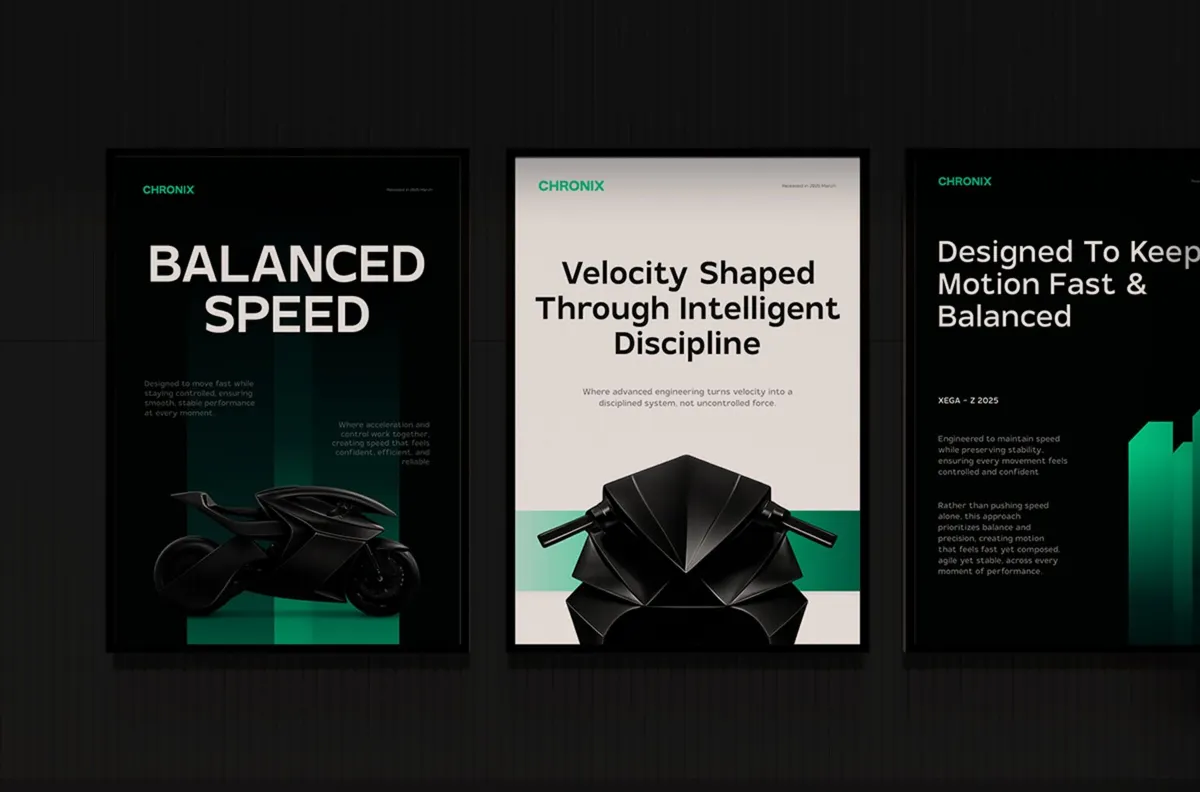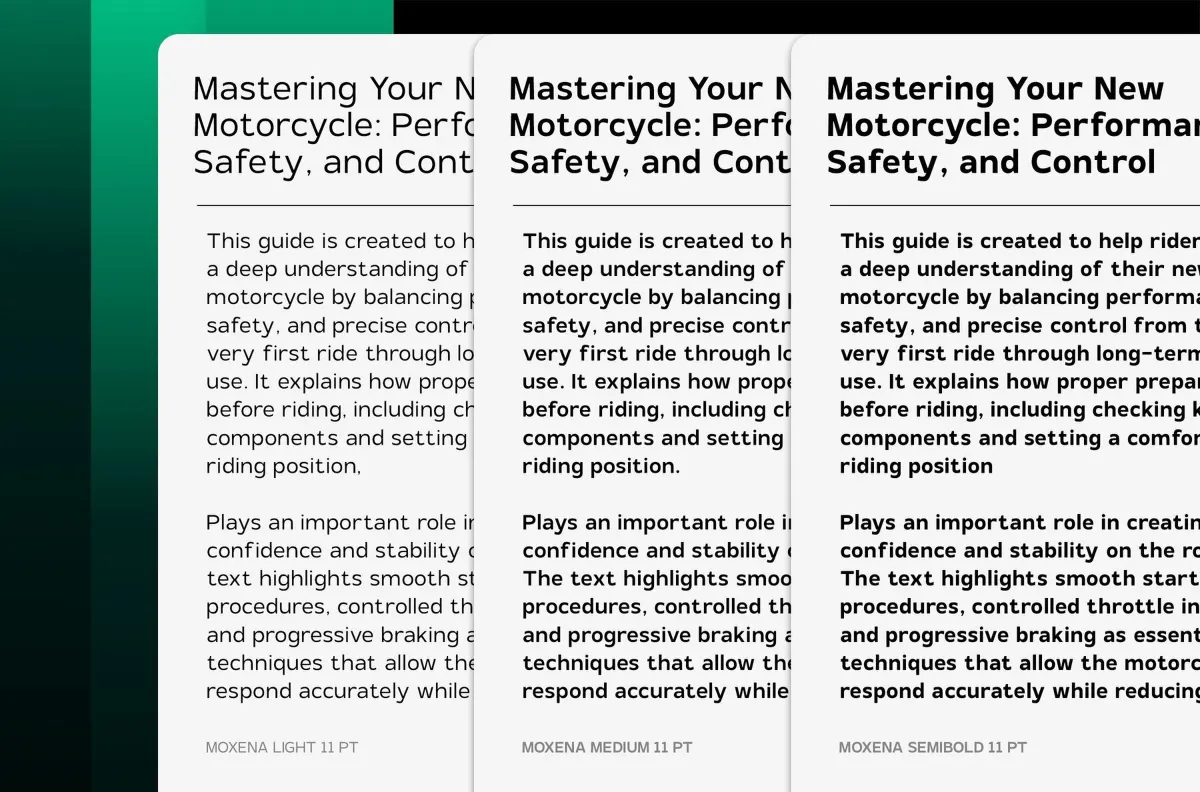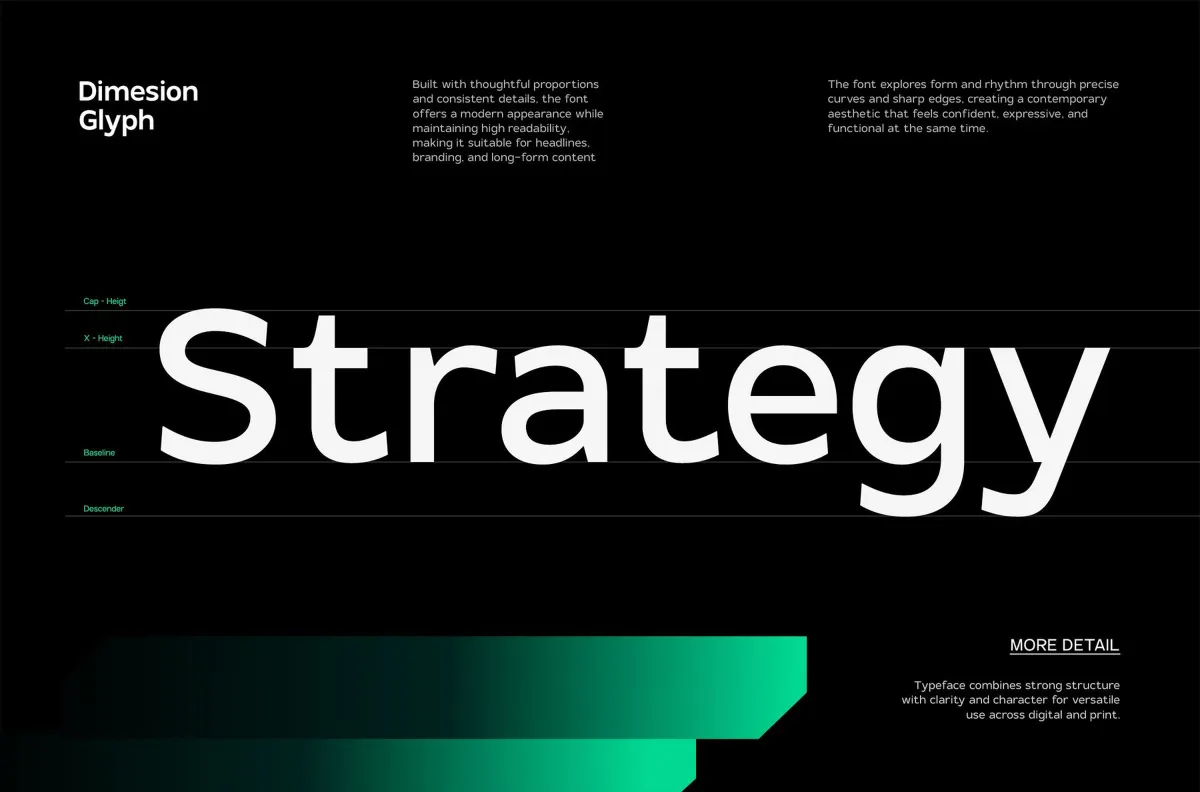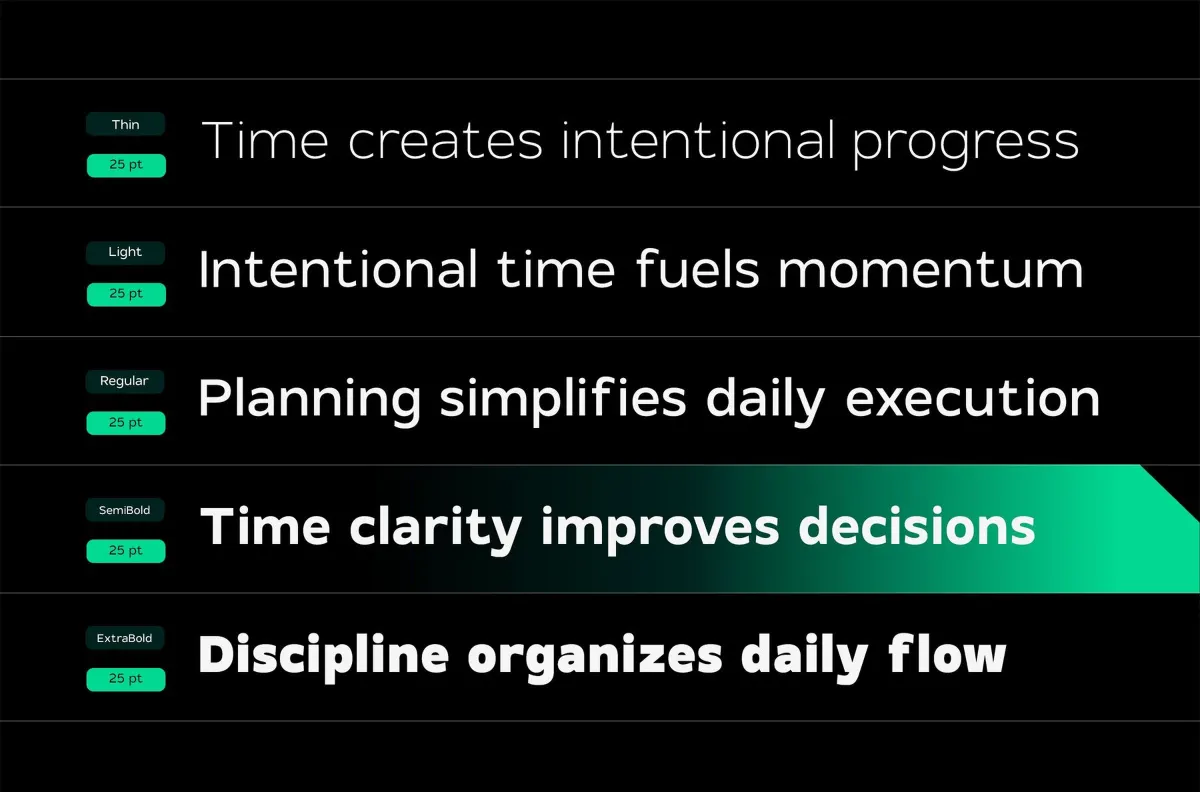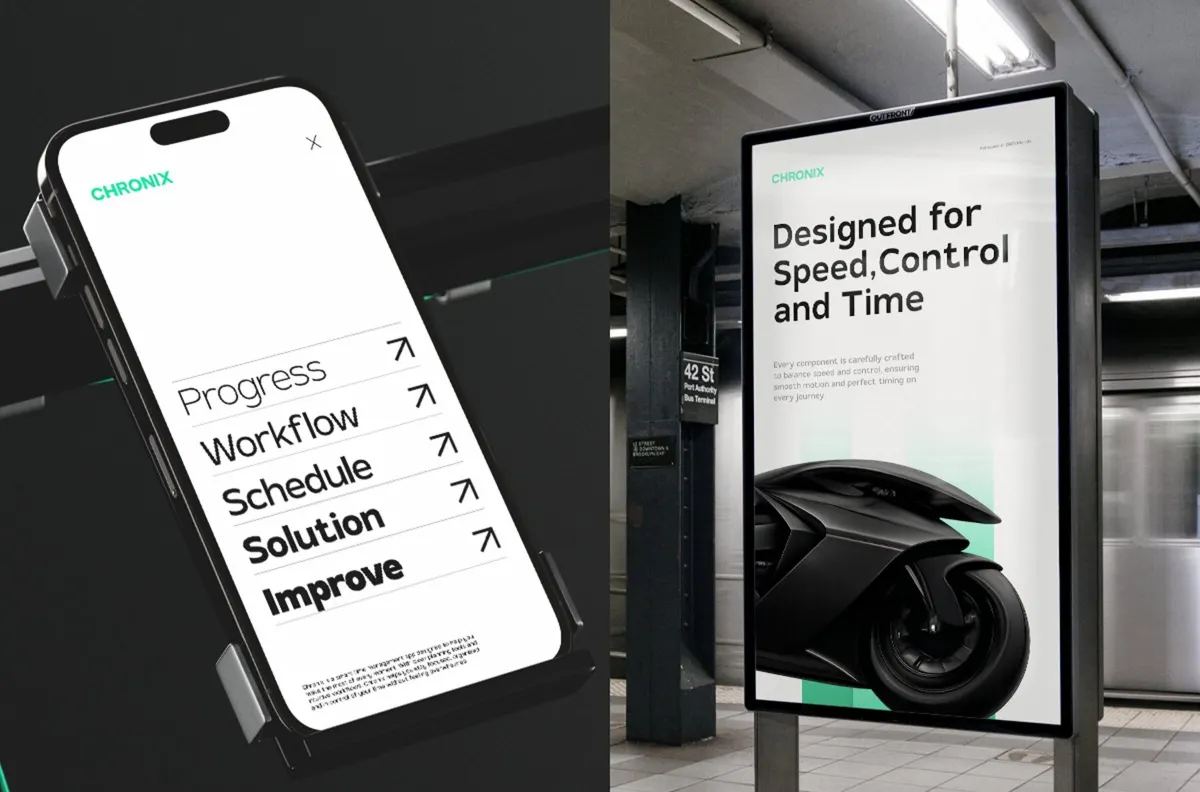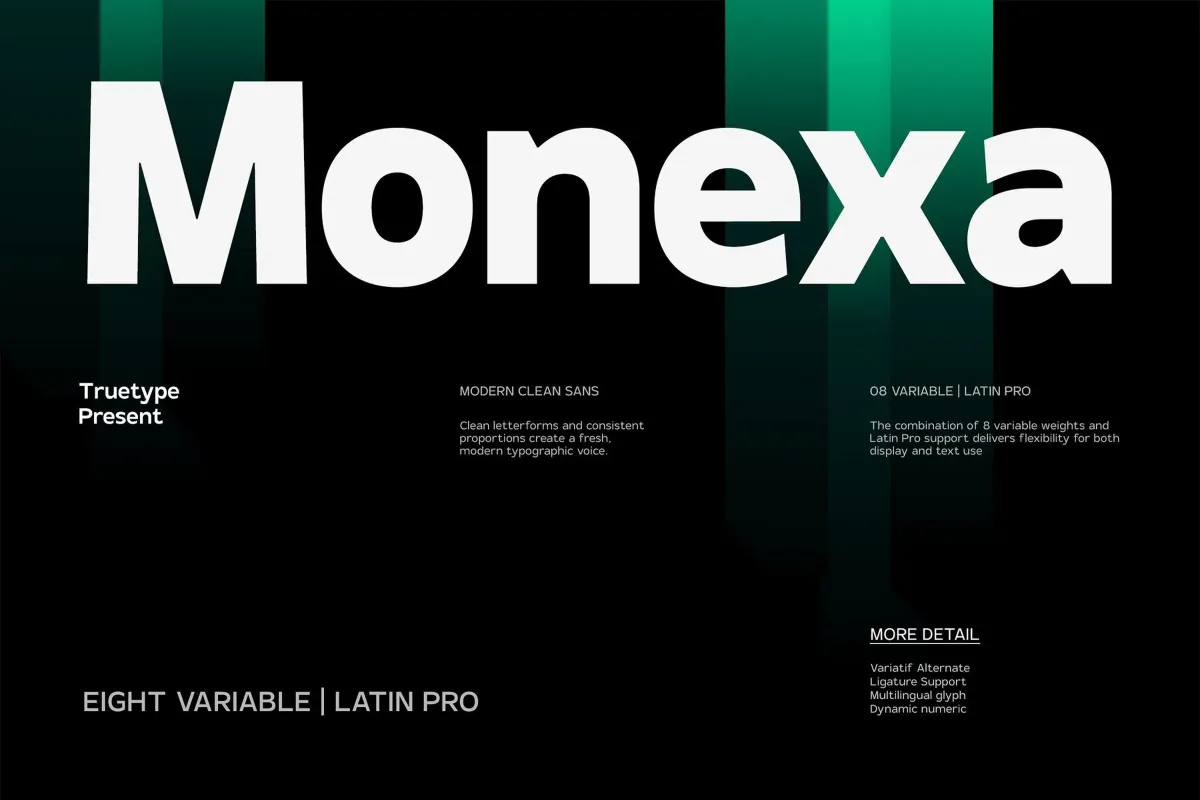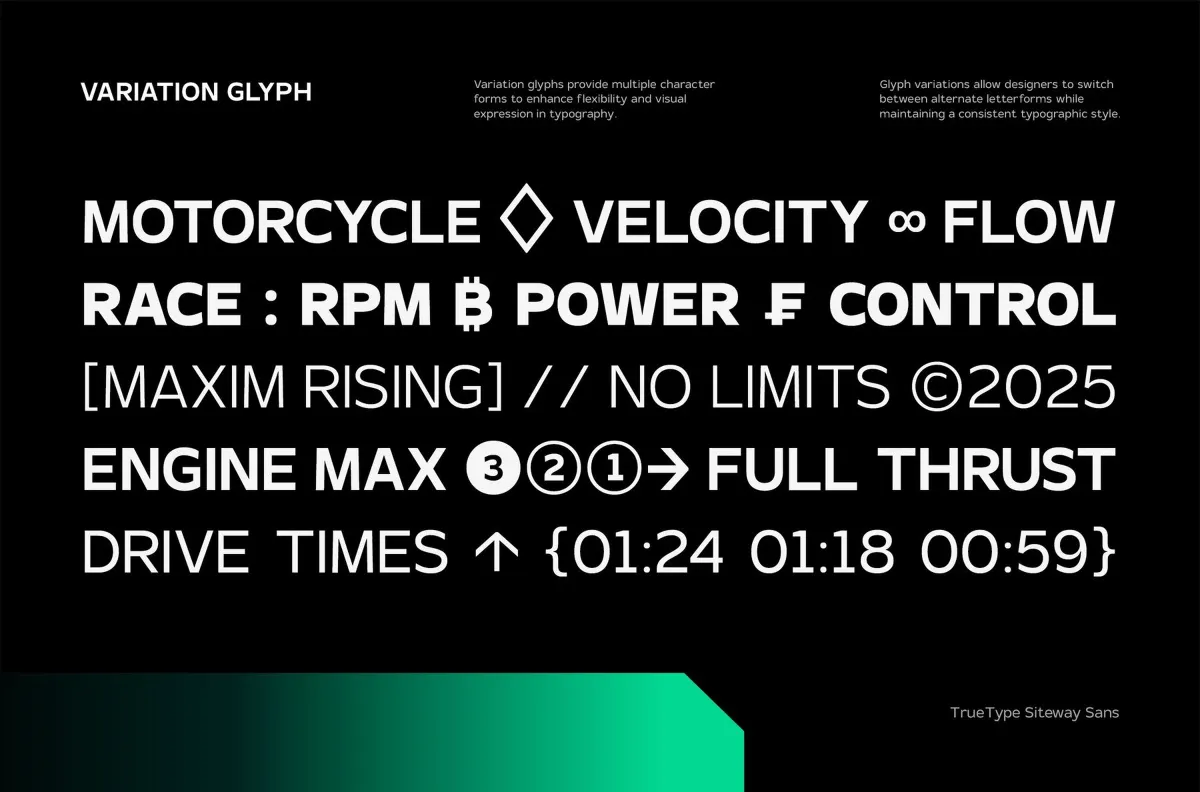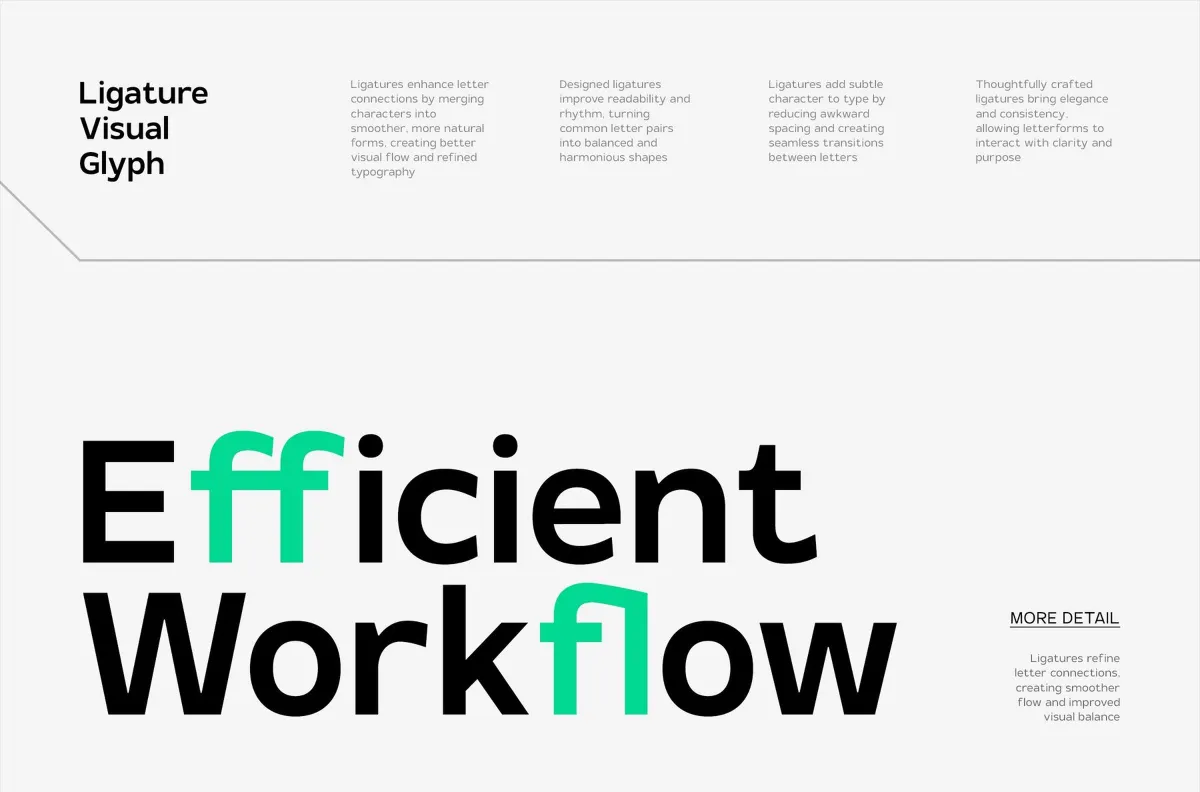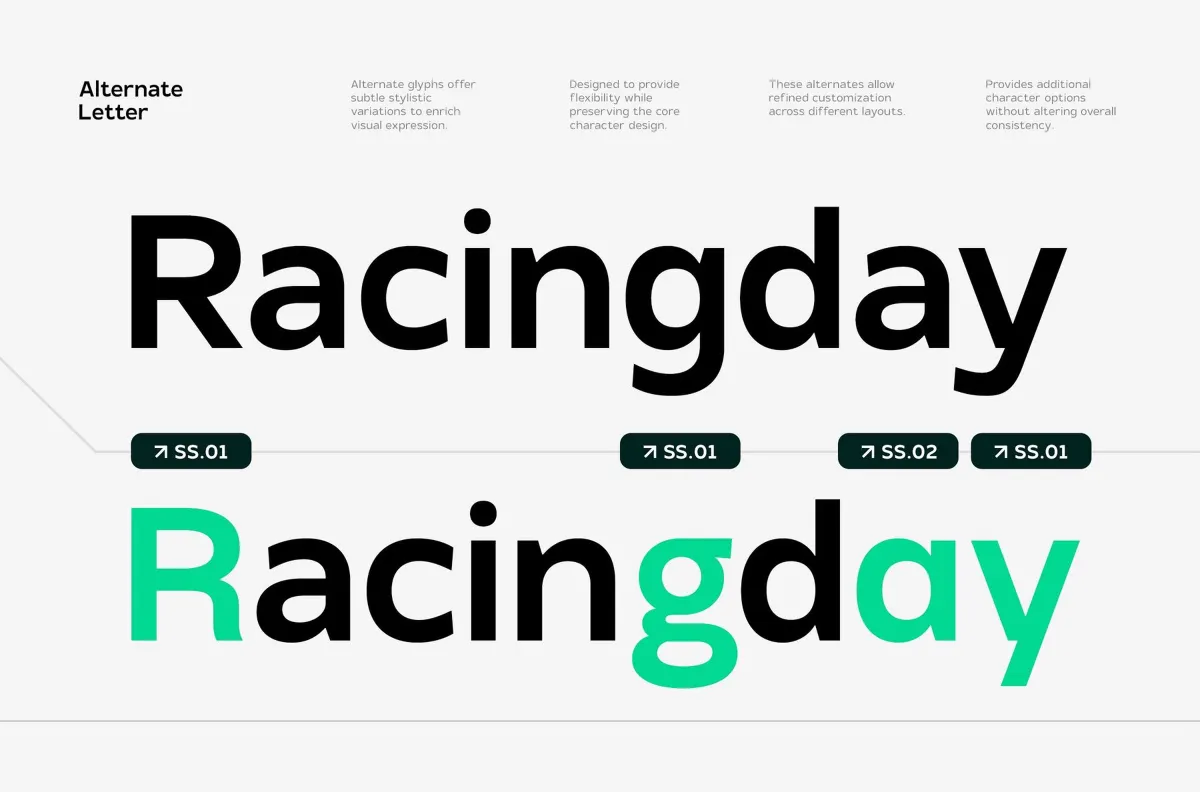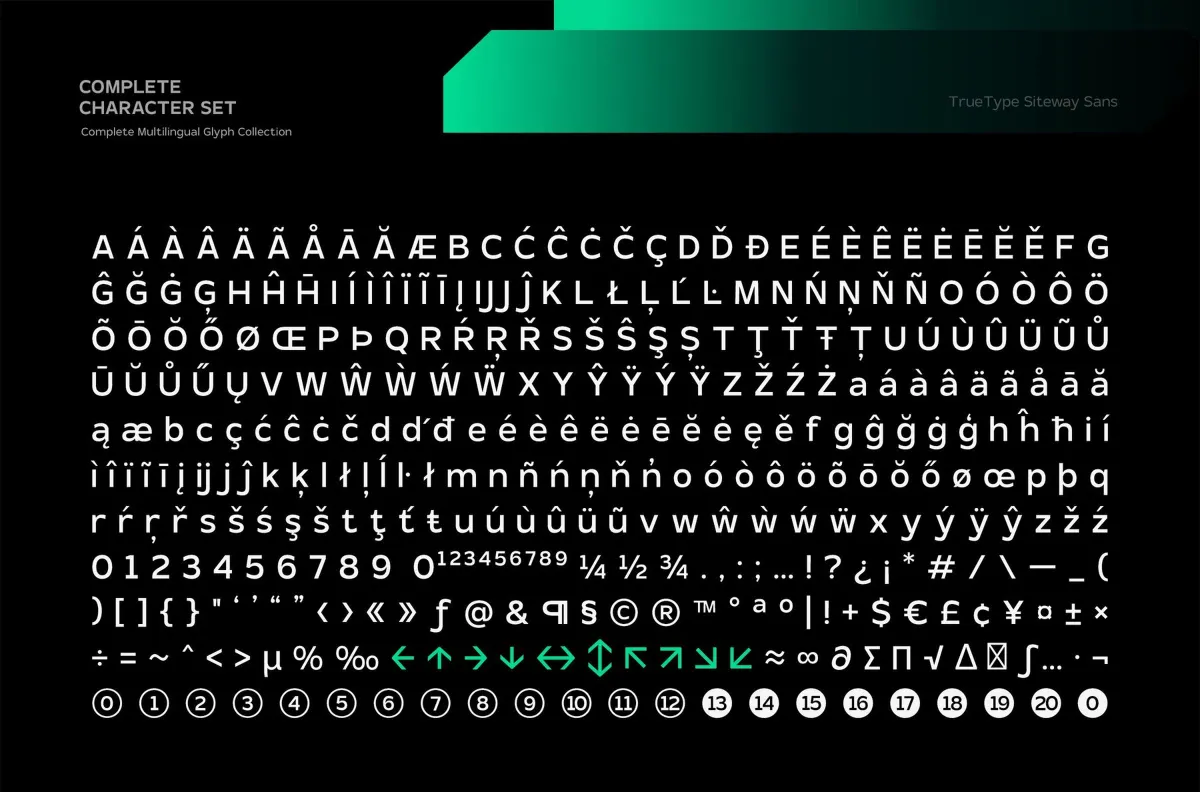
TRT Monexa Modern Sans Typeface
TRT Monexa builds a humanist sans serif with open apertures and an even stroke rhythm, closer to a refined take on Open Sans than a display face chasing personality. Eight weights move from a hairline Thin through a solid Extra Bold, and a variable font covers that same range in a single file. Two stylistic alternate sets swap in alternate forms for a mix of capitals and lowercase letters, all reachable through the OpenType panel.
Use it for interface design, web and app UI, dashboards, editorial layouts, and long-form digital content that wants a clean sans serif voice.
- Uppercase & lowercase;
- Numerals, punctuation & symbols;
- 8 weights: Thin, ExtraLight, Light, Regular, Medium, SemiBold, Bold, ExtraBold;
- Variable font covering the full weight range;
- 14 ligatures, stylistic alternates on select characters, numerator and denominator figures, superior and inferior numerals;